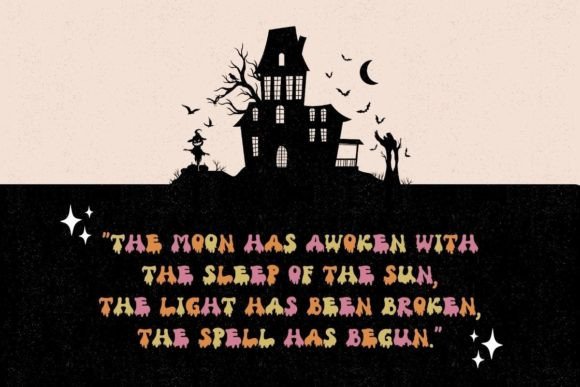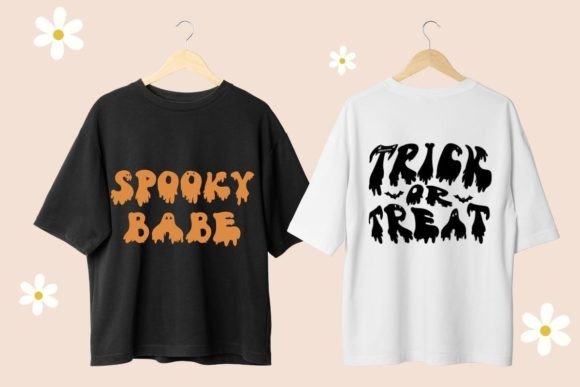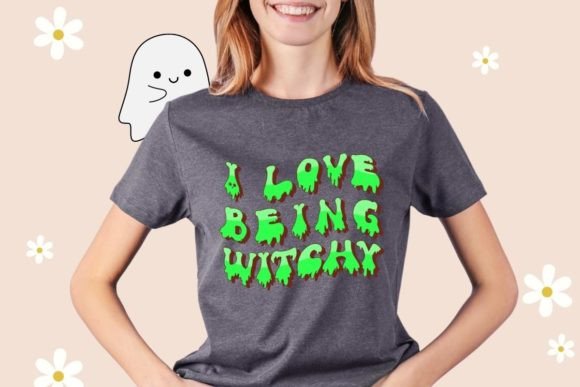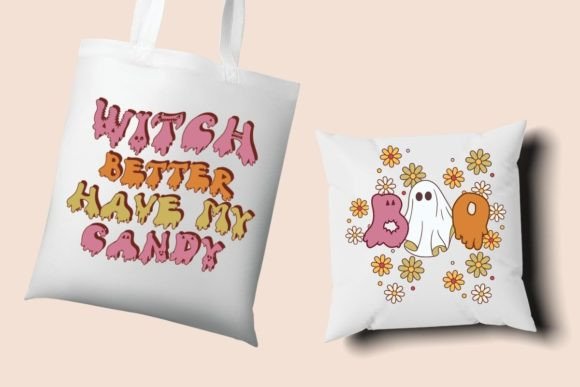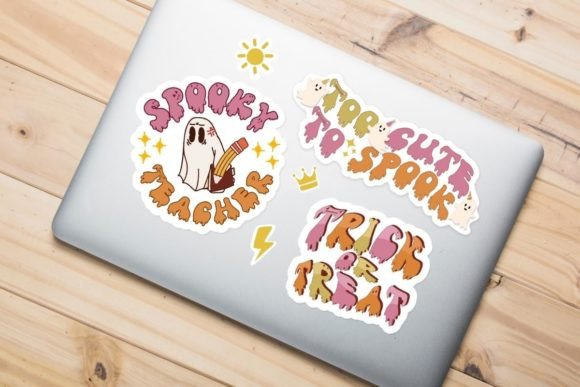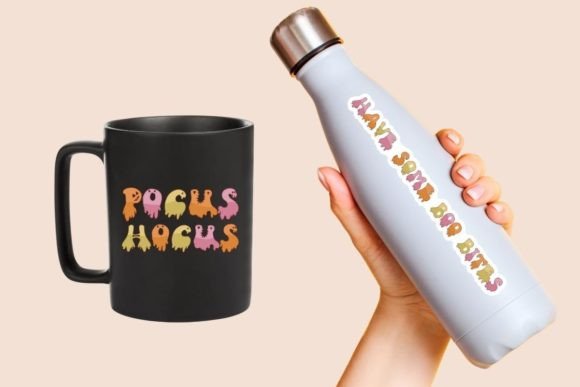
Introduction to Groovy Boo Boo Font
As a designer, there’s nothing quite like the thrill of bringing a creative project to life. And what better way to spark your imagination than with a font that’s as fun as it is functional? We’re excited to introduce the Groovy Boo Boo Font, a display font that’s guaranteed to add a touch of magic to your Halloween-themed designs.
Imagine you’re working on a spooky poster or card, and you need a font that’s both playful and eerie. That’s where Groovy Boo Boo Font comes in – with its groovy and slime-inspired style, it captures the spirit of Halloween in a delightful and captivating way. And the best part? This high-quality font is available for free download, making it a valuable resource for designers looking to elevate their designs.
Whether you’re a seasoned pro or just starting out, the Groovy Boo Boo Font is a must-have for any design project. Its transparent background and versatile style make it perfect for a wide range of applications, from stickers to merchandise. So why settle for an ordinary font when you can have a Groovy Boo Boo Font that’s truly one-of-a-kind?
Key Features of Groovy Boo Boo Font
- Unique Hand-Drawn Design: Groovy Boo Boo Font features a distinctive, hand-drawn style that adds a touch of personality to any creative project.
- High-Quality Design Resource: This font is designed with high-resolution graphics, making it perfect for printing and digital use.
- Transparent Background: The transparent background of Groovy Boo Boo Font allows for seamless integration with any design, making it a versatile design resource.
- Perfect for Creative Projects: With its playful, hand-drawn style, Groovy Boo Boo Font is ideal for use in creative projects, such as invitations, posters, and social media graphics.
Honest Review: Groovy Boo Boo Font
I recently stumbled upon the Groovy Boo Boo Font, and I’m excited to share my thoughts on this design resource. Overall, I found it to be a great addition to any creative project.
- ✨ Unique and playful style: The Groovy Boo Boo Font has a distinct, quirky feel that’s perfect for projects that need a bit of personality.
- ✨ High quality: The font is crisp and well-designed, making it suitable for a wide range of applications.
- ✨ Transparent background: This feature allows for easy use on various backgrounds, giving designers more flexibility in their designs.
- ⚠️ Limited character set: While the font is well-designed, its character set is somewhat limited, which may not be ideal for longer texts.
Overall, I think the Groovy Boo Boo Font is a great design resource for creative projects. Its unique style and high quality make it a great choice for designers looking to add some personality to their work. However, its limitations should be taken into consideration, especially for longer texts or more complex designs.
The Groovy Boo Boo Font is a free design resource that offers a high-quality, creative solution for your projects. Its transparent background makes it easy to integrate into your designs, and its unique style will give your work a distinctive touch.